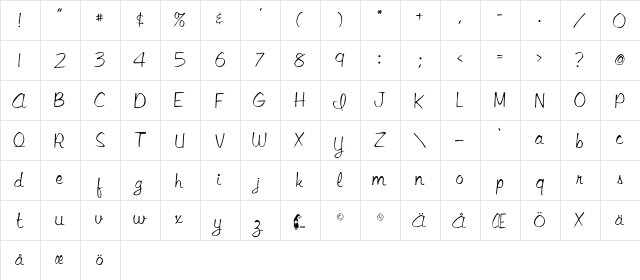
LibbyScript2 Regular Font Preview
LibbyScript2 Regular
LibbyScript2 Regular Font Details
Design Context for LibbyScript2 Typeface
LibbyScript2 brings a calligraphic fluidity to the page — its connecting strokes and expressive curves give it an unmistakably human quality.